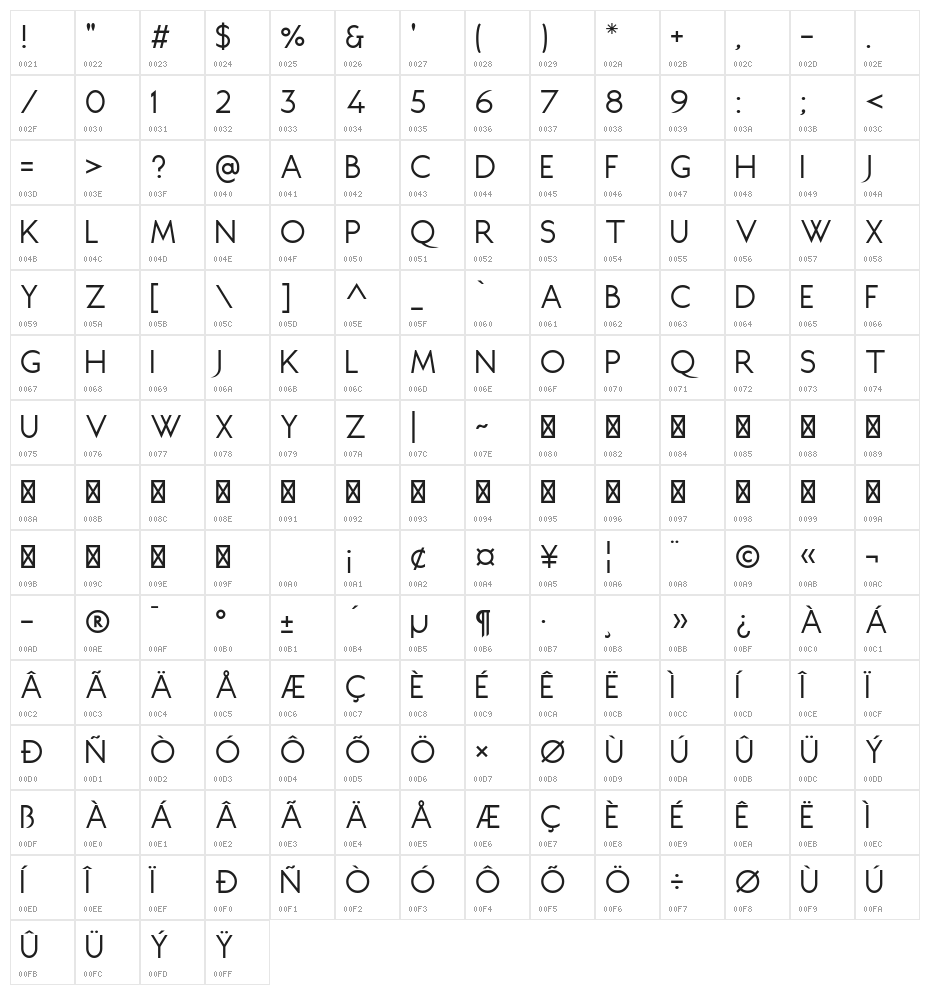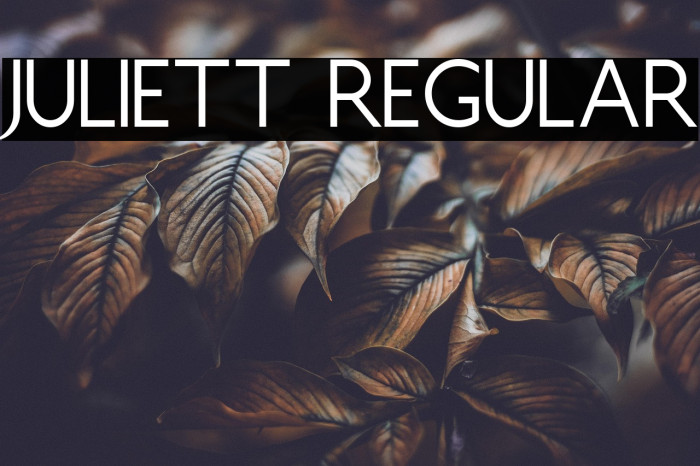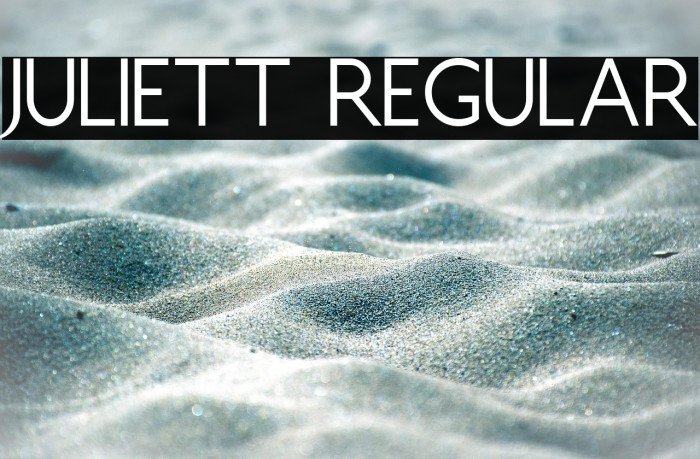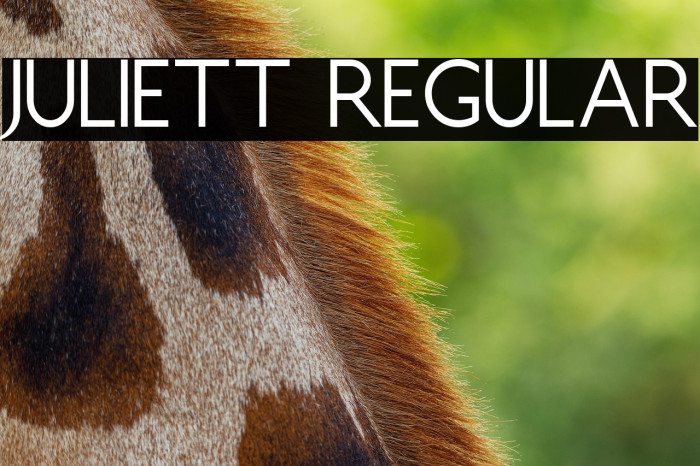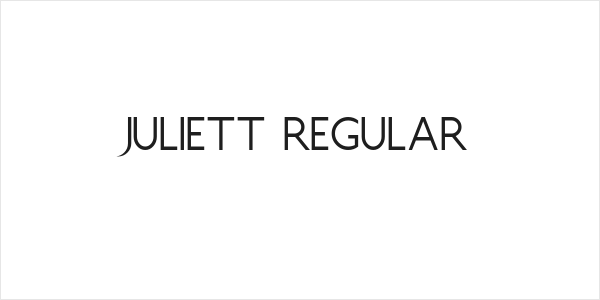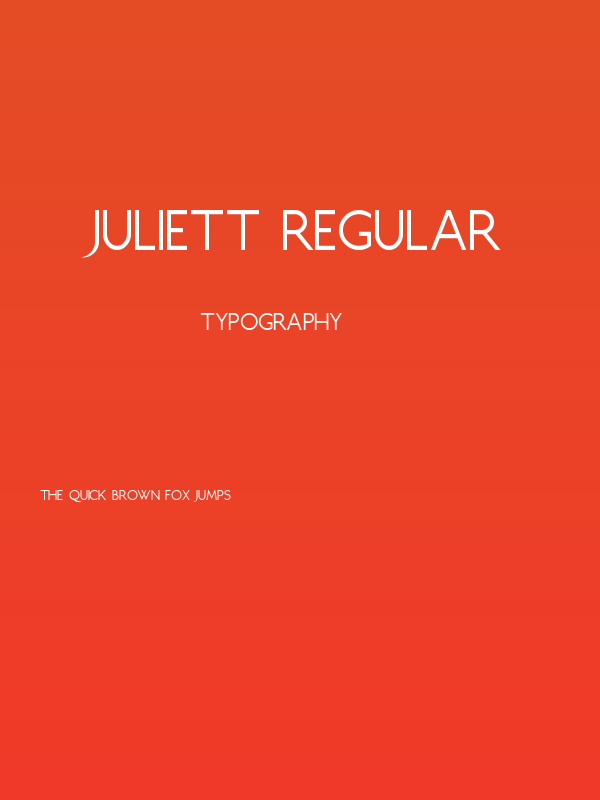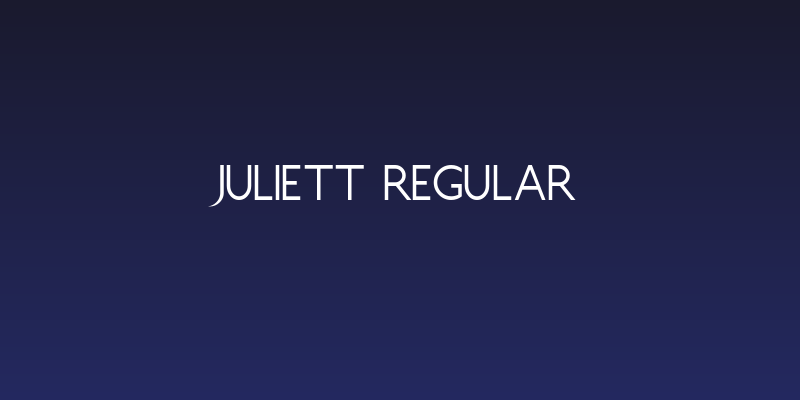
This font features a sleek and modern design with clean lines and a geometric structure. The characters are well-proportioned, offering a harmonious balance between curves and straight edges. The uppercase letters are bold and commanding, while the lowercase letters maintain a consistent style that complements the uppercase. The numerals are distinct and easy to read, making them suitable for various applications. Special characters are thoughtfully designed, maintaining the overall aesthetic of the font. This typeface is versatile, suitable for both digital and print media.